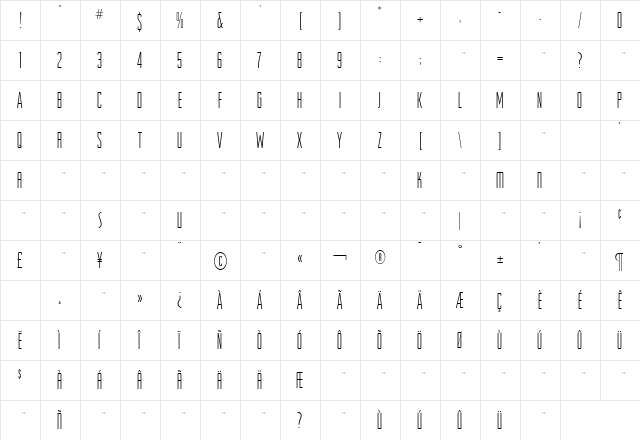
RRRaleighGothicCondLight Roman Font Preview
Design Context for RRRaleighGothicCondLight Typeface
RRRaleighGothicCondLight takes a clean, functional approach — its unadorned letterforms prioritise legibility and work reliably across screen and print environments. Its slender proportions lend an understated elegance to any composition. The condensed width makes it efficient for tight spaces without sacrificing legibility.
A natural fit for high-end product packaging, luxury brand identities, and refined web typography.
Font Pairing: Pair RRRaleighGothicCondLight with a medium or bold serif for headlines — the weight contrast creates an elegant, high-end feel.
Pro Tip: Use RRRaleighGothicCondLight tightly set in headlines and banners — its condensed proportions make it ideal for maximum impact in minimum horizontal space.